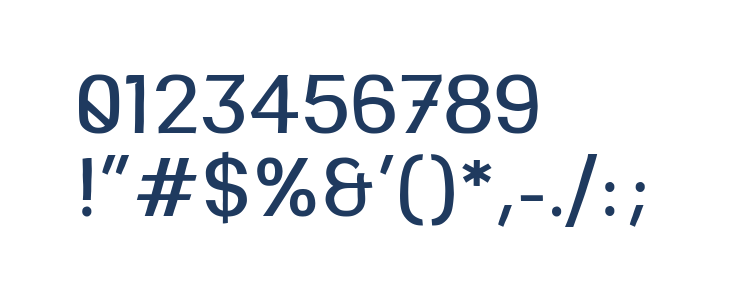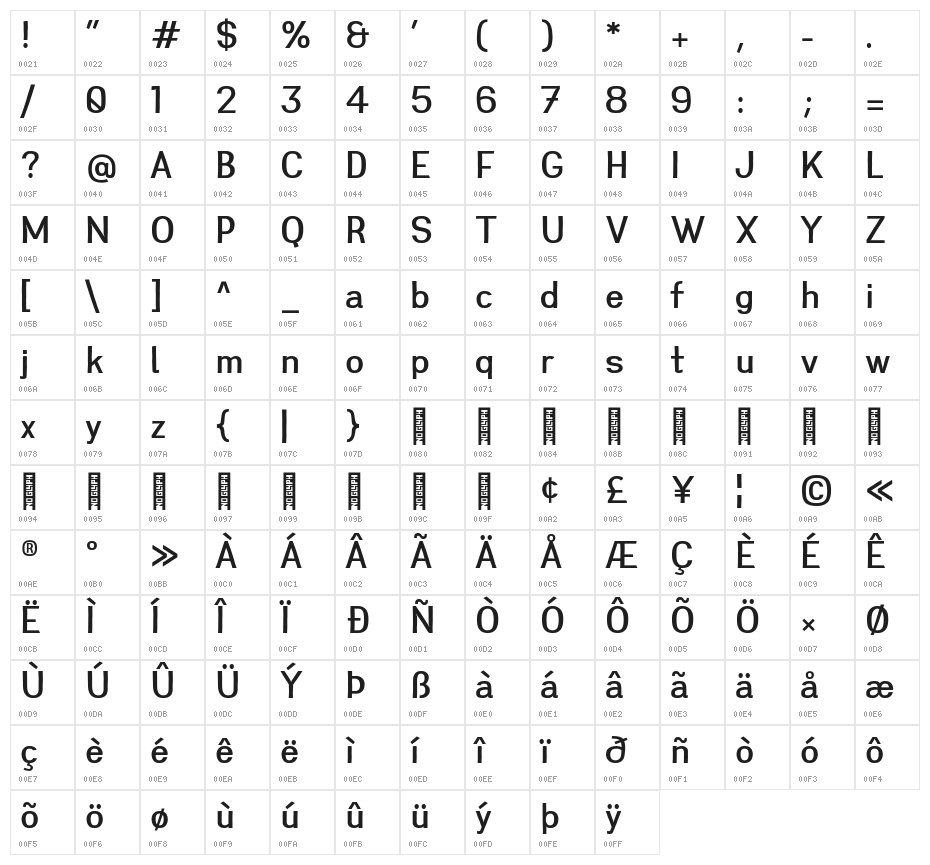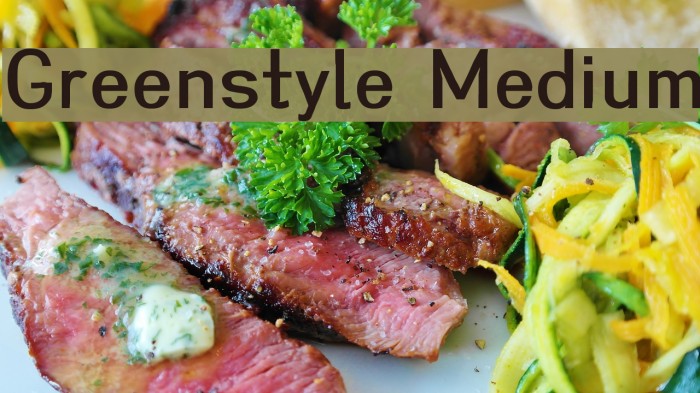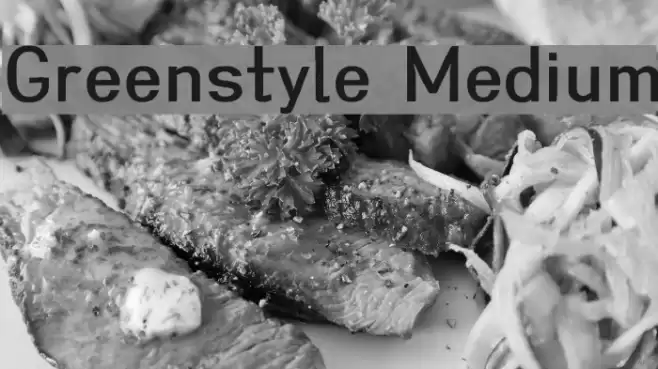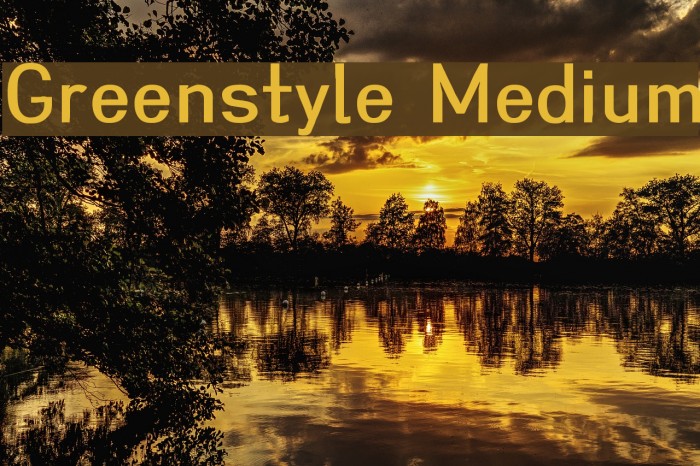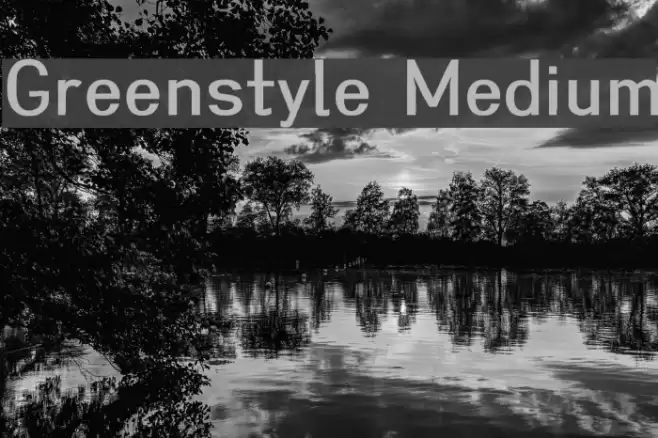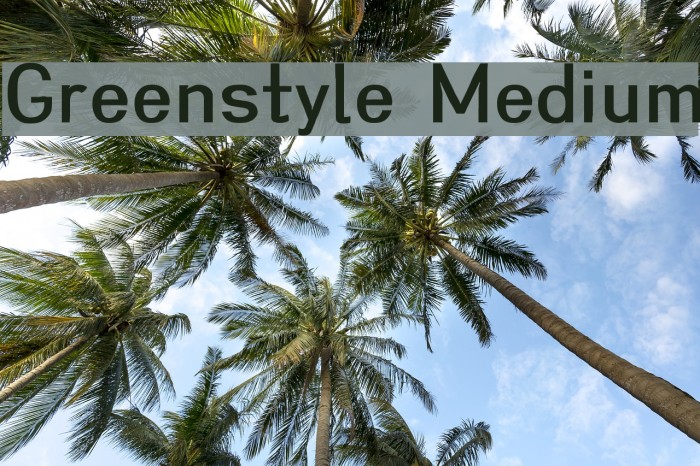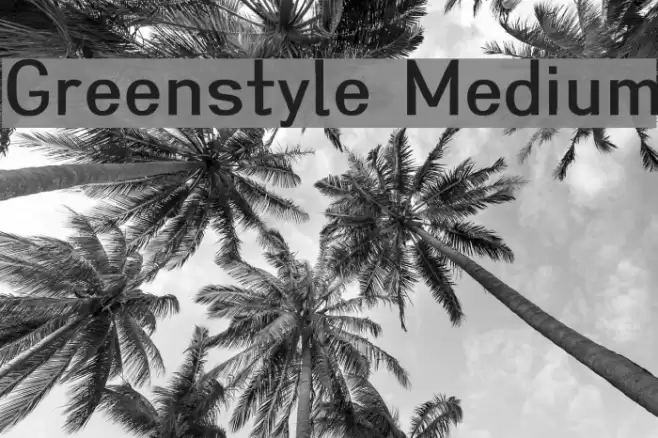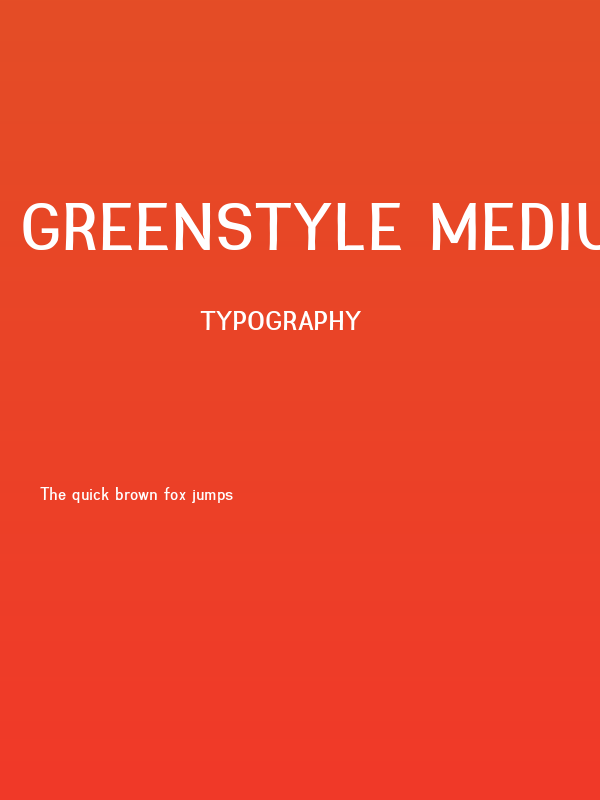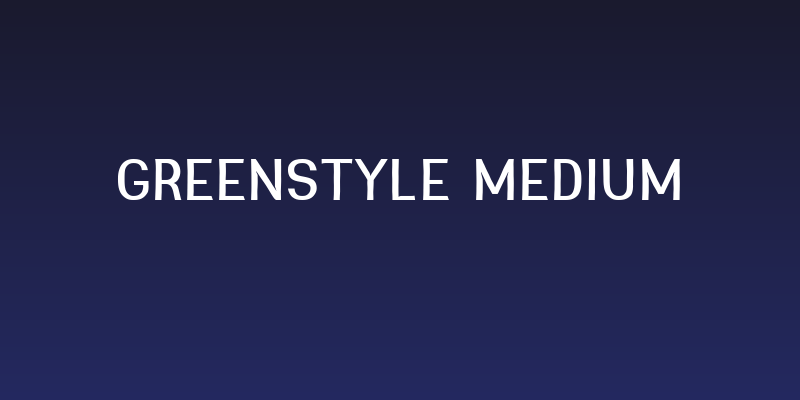
Greenstyle Medium Font
Greenstyle Medium Description
This font features a clean and modern sans-serif design, characterized by its geometric shapes and uniform stroke widths. The uppercase letters are bold and assertive, while the lowercase letters maintain a consistent and harmonious flow. The numerals are clear and easy to read, making them suitable for various applications. Special characters are well-defined, adding versatility to the font's use. The overall appearance is sleek and professional, making it ideal for contemporary design projects.
| Proposed Projects | Ideal for branding, web design, advertising, and editorial layouts. |